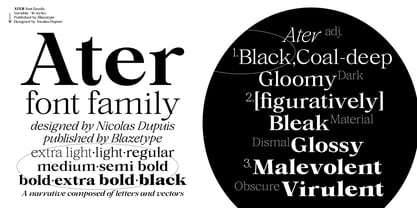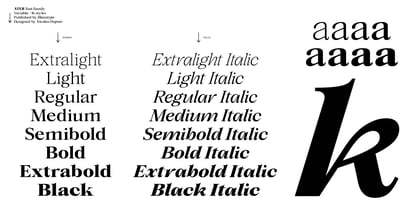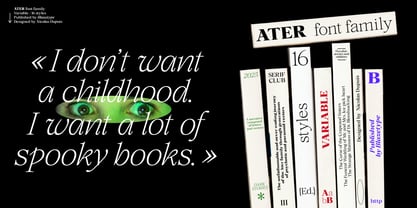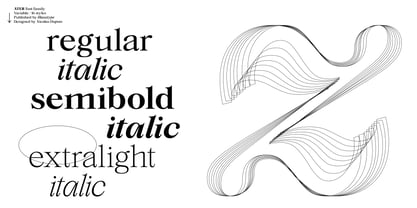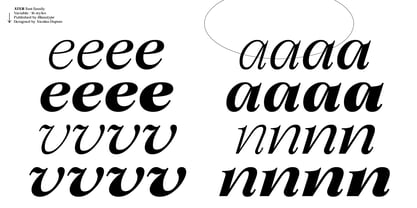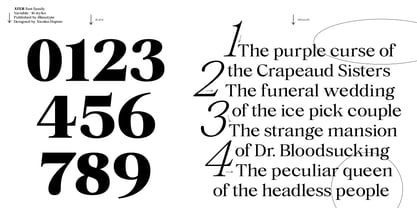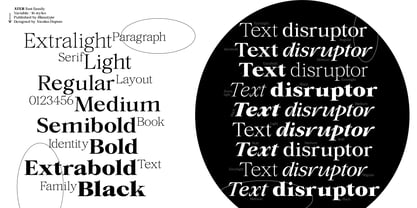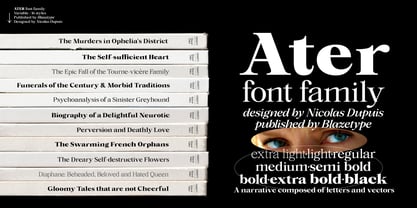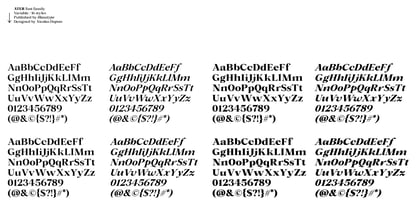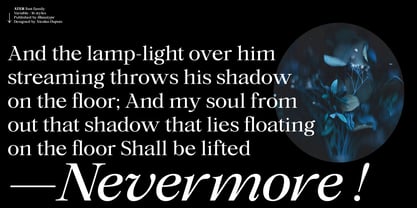
Ater
von Blaze Type
Die Schriftfamilie Ater wurde von Nicolas Dupuis entworfen und von Blaze Type veröffentlicht. Ater enthält 16 Stile und Familienpaketoptionen. Mehr über diese Familie
The Ater family was designed with the intention of being used for text editing and also display applications. Whether on a large poster or in a pocket book, the family can adapt to any format. An elegant family which borrows from classic serif typefaces as well as more contemporary forms. In a spirit of bringing together as many different mediums as possible with unity in the shapes. It is a variable typeface with a letter blackening approach, sometimes to the point of appearing in a display-style. The typeface plays with this ambiguity between classic and display shapes thanks to the great contrasts between the finest and darkest styles. This opens up a multitude of possibilities. From Extra light to Black, it goes to the extreme for optimal legibility in both small and large sizes. The word Ater in latin means “matte black,” a fitting name for a family that does not hesitate to fill a white page.
Designer: Nicolas Dupuis
Aktuelle Foundry: Blaze Type